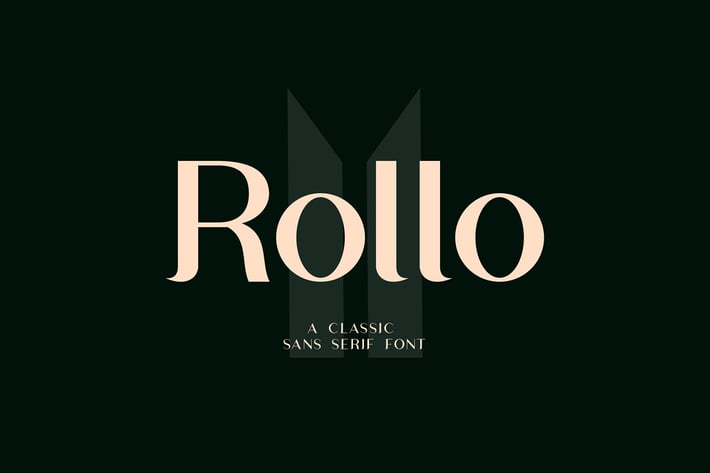
Rollo Classic Sans Serif Font
Introducing Rollo Classic Sans Serif Font
Rollo Classic Sans Serif Font is a handmade Modern Victorian handlettering, which is combining modern and classic typography with some awesome alternates. Yes we back to early 1800s, bring classic touch on this decade.
- Alternate